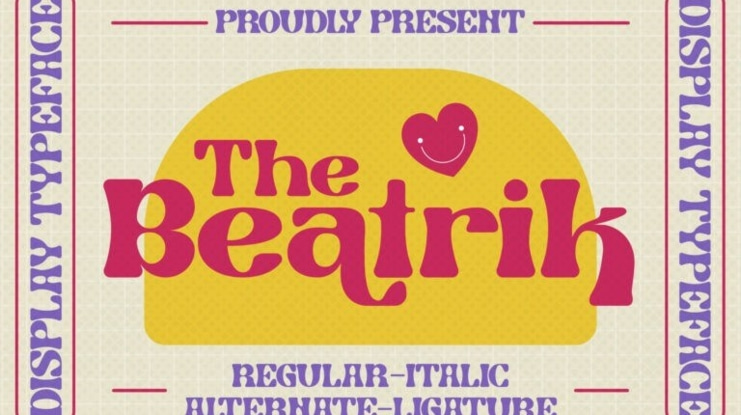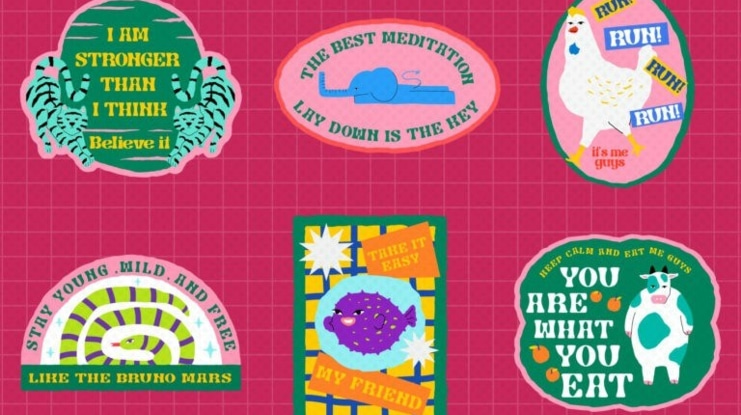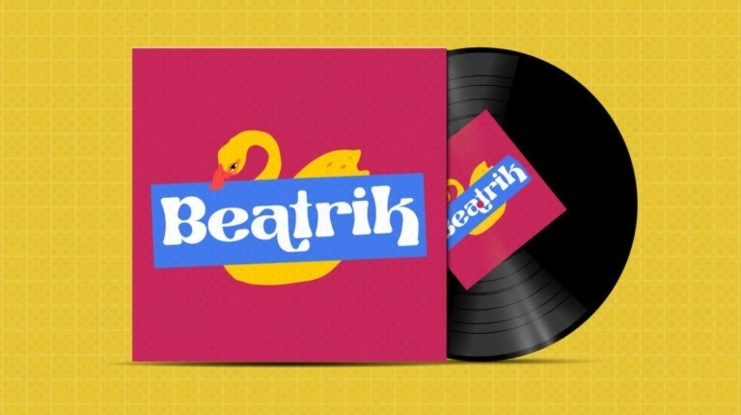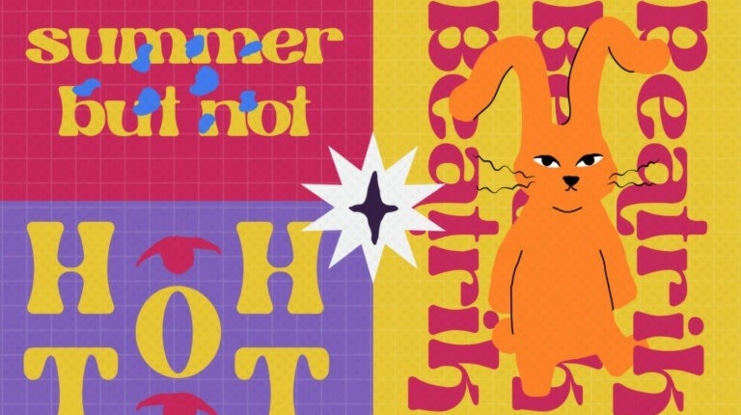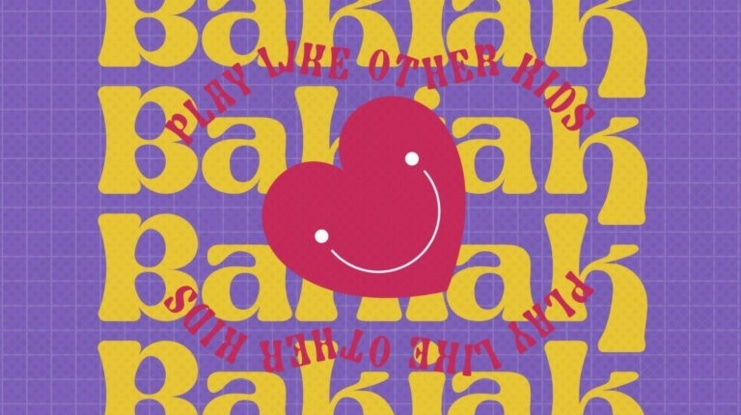
The Beatrik Font
The Beatrik Display Font Proudly present The Beatrik Typeface, created by Storytype, A serif modern and classic typeface that has own unique style & modern look. This typeface is perfect for an elegant & luxury logo, book or movie title design, fashion brand, magazine, clothes, lettering, quotes, and so much more.